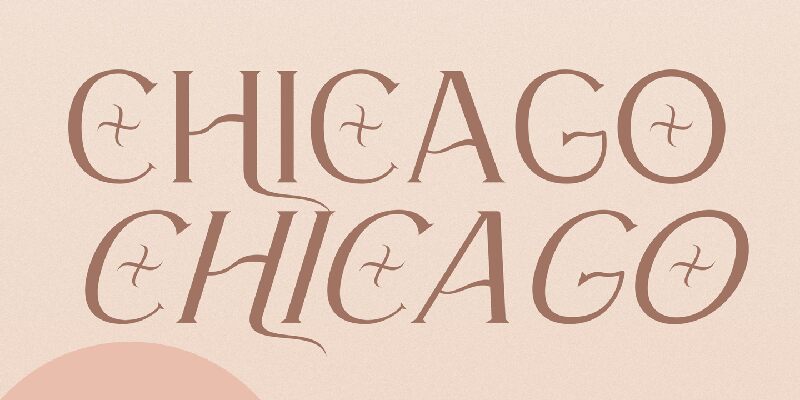
Chicago, a sophisticated serif font designed by Rezastudio, exudes elegance and refinement. With its semi-light weight, this font is perfect for projects that require a touch of subtlety and sophistication. Its clean lines and classic design make it suitable for anything from high-end fashion magazines to luxury brand logos. Chicago's timeless appeal lends itself well to wedding invitations, formal event signage, and elegant product packaging. Whether used in print or digital media, this versatile font brings an air of chicness to any project it graces.
CHICAGO